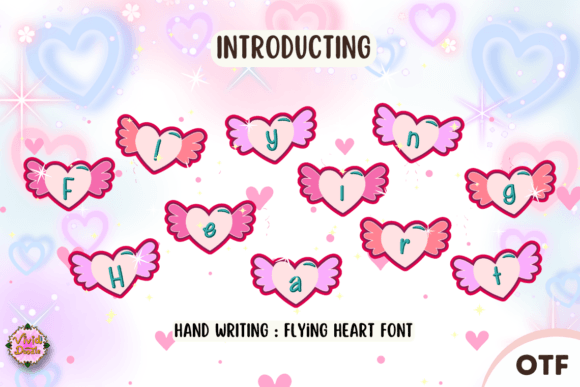
Flyingheart Font: The Ultimate Holiday Companion for Designers and Crafters
The holiday season is upon us, and with it comes the desire to create festive and joyful content that captures the spirit of the season. As a designer or crafter, you’re likely on the lookout for the perfect font to add a touch of merriment to your projects. Look no further than the Flyingheart Font, a unique, hand-lettered font designed to radiate festive cheer and bring warmth to your creations.
A Font that Embodies the Holiday Spirit
Flyingheart Font is a newly crafted font, thoughtfully designed to imbue your projects with the joy and magic of the holiday season. Its enchanting and exclusive design makes it the perfect addition to any festive endeavor, from holiday cards and invitations to social media graphics and marketing materials. The font’s adaptability ensures that it can be used in a variety of contexts, from formal to informal, and can be easily paired with other fonts to create a unique look.
What Makes Flyingheart Font So Special?
So, what sets Flyingheart Font apart from other fonts on the market? Here are just a few reasons why this font is a must-have for designers and crafters:
- Unique and Hand-Lettered Design: Flyingheart Font boasts a one-of-a-kind, hand-lettered design that exudes warmth and personality. Each letter has been carefully crafted to create a sense of movement and energy, making it perfect for capturing the festive spirit.
- Festive yet Versatile: While Flyingheart Font is specifically designed for the holiday season, its versatility ensures that it can be used in a variety of contexts beyond the holidays. Whether you’re creating a festive project or simply want to add a touch of whimsy to your design, this font is sure to impress.
- Easy to Use: Flyingheart Font is designed to be user-friendly, making it easy to incorporate into your projects. Whether you’re a seasoned designer or a crafting novice, you’ll appreciate the font’s seamless integration into your workflow.
How to Use Flyingheart Font in Your Projects
Now that you’re excited about Flyingheart Font, you’re probably wondering how to incorporate it into your projects. Here are a few ideas to get you started:
- Holiday Cards and Invitations: Add a touch of festive flair to your holiday cards and invitations with Flyingheart Font. Its elegant yet playful design makes it perfect for formal and informal events alike.
- Social Media Graphics: Elevate your social media graphics with Flyingheart Font, creating eye-catching posts that capture the holiday spirit. From Facebook and Instagram to Twitter and Pinterest, this font is sure to make your content stand out.
- Marketing Materials: Give your marketing materials a festive twist with Flyingheart Font. Whether you’re creating flyers, brochures, or posters, this font is sure to add a touch of warmth and personality to your designs.
- Crafting Projects: Flyingheart Font is also perfect for crafters, adding a touch of magic to your handmade projects. Use it to create custom signs, gift tags, and more.
Why Designers and Crafters Love Flyingheart Font
Flyingheart Font has quickly become a favorite among designers and crafters, and it’s easy to see why. Here are just a few reasons why this font has captured the hearts of creatives:
- Time-Saving: With Flyingheart Font, you can quickly and easily add a touch of festive flair to your projects, saving you time and effort in the design process.
- High-Quality Design: Flyingheart Font boasts a high-quality design that’s sure to impress. Its unique and hand-lettered design ensures that your projects stand out from the crowd.
- Exclusive and Unique: As an exclusive font, Flyingheart Font is not available anywhere else, making it a unique addition to your font collection.
| Author | VividDoodle |
In conclusion, Flyingheart Font is the perfect companion for designers and crafters looking to add a touch of festive cheer to their projects. Its unique, hand-lettered design, adaptability, and ease of use make it a must-have for anyone looking to create festive and joyful content. Whether you’re creating holiday cards, social media graphics, or crafting projects, Flyingheart Font is sure to elevate your designs and bring warmth to your creations. So why wait? Get ready to experience the merriment of the season with Flyingheart Font!